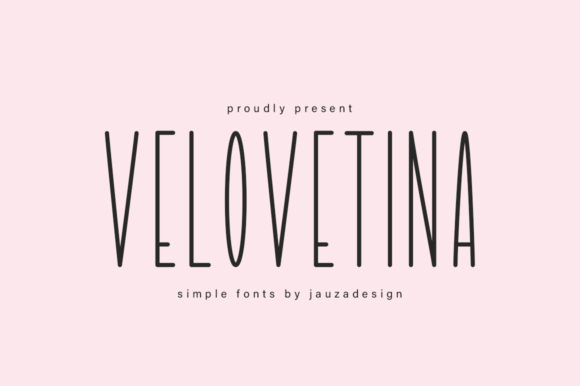
Welcome to the realm of Velovetina: an exquisitely beautiful, evocative, and exceptionally versatile sans serif font family that's destined to transform your words into mesmerizing works of art. Crafted by the renowned jauzadesign, this captivating font collection is not just a set of letters, but a symphony of elegance, sophistication, and creativity.
Immerse yourself in Velovetina's graceful curves, flawless lines, and striking shapes that effortlessly exude an aura of refined uniqueness. This font family is like a breath of fresh air, bringing a touch of contemporary luxury to your digital creations. You'll find yourself drawn to its clean and crisp appearance, which makes it the perfect choice for any project that demands a high level of visual appeal.
Whether you're a seasoned designer or just starting your creative journey, Velovetina will elevate your projects to new heights. It possesses an uncanny ability to make your words look stunning on any platform, be it print or digital. Let Velovetina captivate your audience with its inherent elegance and timeless beauty.
So, what sets Velovetina apart from the crowd of ordinary fonts? Here's why Velovetina is the perfect choice for your next creative project:
* **Remarkable Readability:** Velovetina's carefully crafted letterforms ensure exceptional readability, making your words easy on the eyes, even in small sizes. Whether you're working on a design for a website, a brochure, or a presentation, Velovetina ensures your message is crystal clear.
* **Expressive Versatility:** This font family's versatility is truly remarkable. It adapts effortlessly to a wide range of creative projects, from sleek logos and eye-catching headlines to elegant invitations and heartfelt love letters. Its versatility is only limited by your imagination.
* **Emotional Resonance:** Velovetina possesses an uncanny ability to evoke emotions. Its soft curves and elegant shapes convey a sense of warmth, sincerity, and sophistication. It's the perfect font for projects that aim to connect with your audience on a deeper level.
* **Effortless Style:** Velovetina's timeless beauty transcends fleeting trends. Its classic design ensures that your projects will remain visually appealing for years to come. Say goodbye to outdated fonts and embrace the enduring elegance of Velovetina.
* **Unleash Your Creativity:** With Velovetina at your disposal, your creativity will flourish. Its versatile nature allows you to experiment with different design possibilities, pushing the boundaries of your imagination. Let Velovetina inspire you to create something truly unique and memorable.
Velovetina is more than just a font; it's a passport to a world of creative possibilities. Its elegant sans serif design will add a touch of sophistication to any project, whether it's a personal blog, an online store, or a marketing campaign. Embrace the transformative power of Velovetina and watch your words blossom into visual masterpieces.